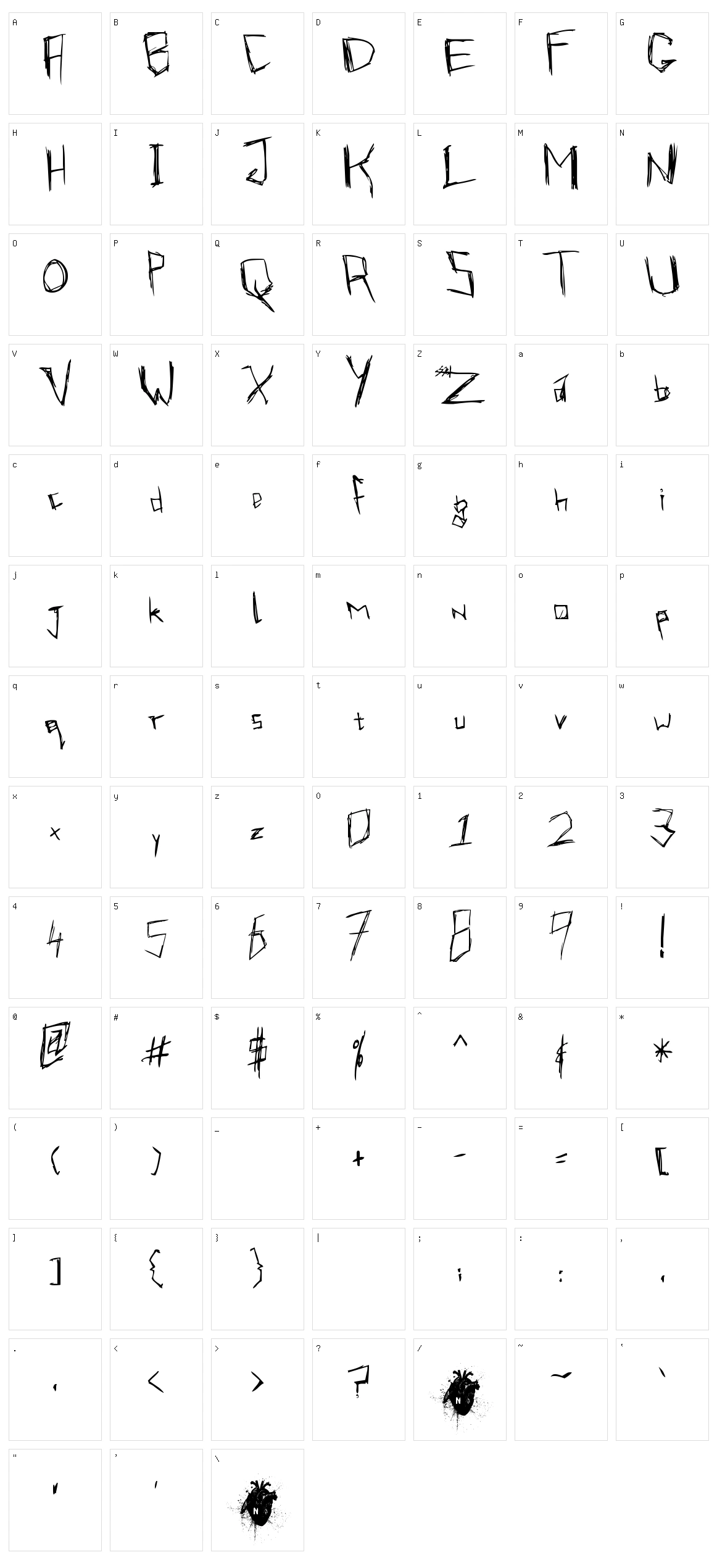
The free font Virmeen T'kirrrl is carefully designed by bleedsopretty, showcasing a thoughtful balance of creativity and usability and falls under the Trash font style. When you download the ZIP file, it contains only 47.72 KB of font files, making it lightweight and quick to download. Please review the license details below to understand permitted usage and distribution rights. If license information is not available, we recommend using this font for personal projects only or contacting the author directly for commercial usage permissions.